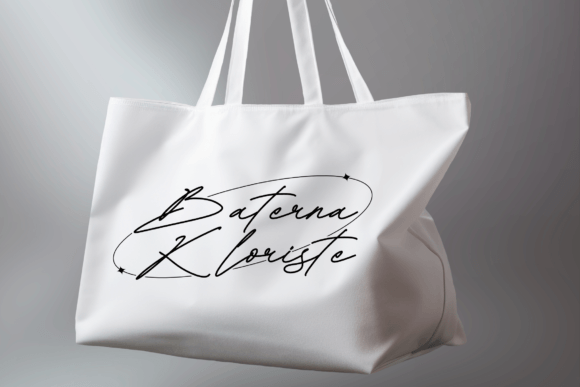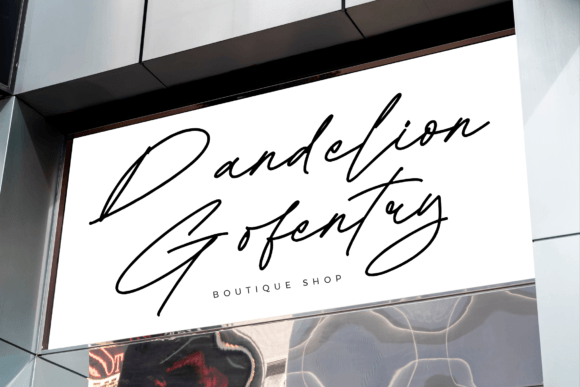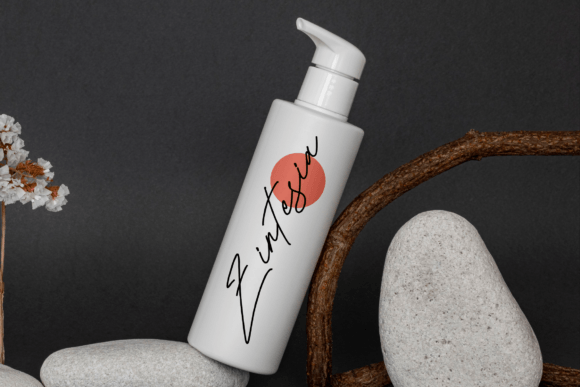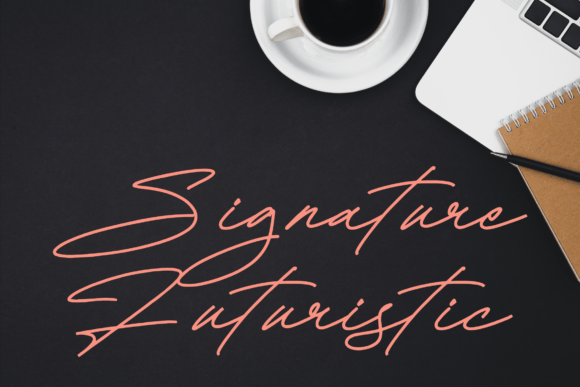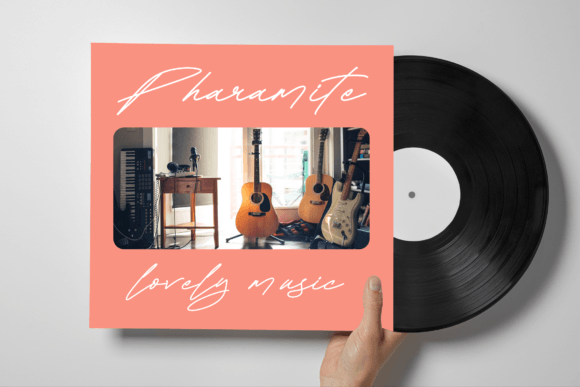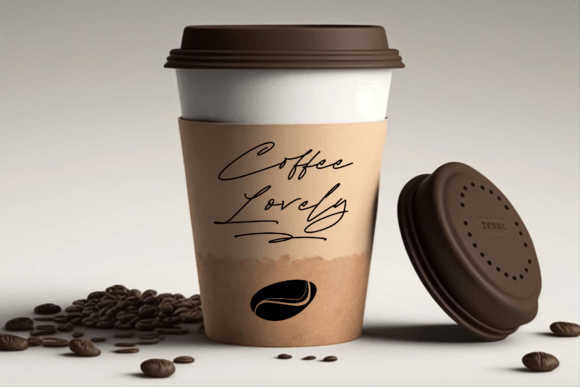
Introduction to Ratherlafia Forghive Font
Have you ever stared at a blank page, trying to bring a creative idea to life, only to feel stuck by the lack of the perfect font? We’ve all been there. But what if I told you that the perfect font is just a click away? Welcome to the world of Ratherlafia Forghive Font, a modern signature font that’s about to revolutionize your design projects.
Designed with versatility in mind, Ratherlafia Forghive Font is perfect for any creative project that needs a touch of elegance and sophistication. Whether you’re working on logos, branding projects, or even personal projects like quotes and posters, this font is sure to elevate your design to the next level. And the best part? It’s available for free download, making it an invaluable resource for designers of all levels.
With its high-quality design and transparent background, Ratherlafia Forghive Font is the perfect addition to any design resource library. Say goodbye to boring designs and hello to a world of creative possibilities with this beautiful script font.
Key Features of Ratherlafia Forghive Font
- High-quality, professional font suitable for creative projects, with a transparent background for seamless integration into designs.
- Unique, modern design that can add a touch of elegance to any project, making it perfect for designers looking for a distinctive font.
- Can be used in a variety of design contexts, from branding and marketing materials to digital products and websites.
- Designed to be highly legible, even at small font sizes, making it an excellent choice for body text and headings.
Honest Review: Ratherlafia Forghive Font
As a designer, I’ve had the chance to work with numerous design resources, but the Ratherlafia Forghive Font has definitely caught my attention. I downloaded it for free and was impressed by its high quality and versatility.
What works well with this font is its elegant and modern design. The transparent background makes it easy to overlay on any image or background, which is perfect for creative projects that require a lot of visual customization.
- ✨ High-quality design with a modern and elegant feel
- ✨ Transparent background for easy overlaying
- ✨ Suitable for a wide range of creative projects, from graphic design to web design
However, I do have a few limitations with this font. One of the main issues is that it can be a bit difficult to read at smaller font sizes, especially in situations where the text is not perfectly legible.
- ⚠️ Can be difficult to read at smaller font sizes
- ⚠️ May not be suitable for situations where text legibility is crucial
Overall, I’m impressed with the Ratherlafia Forghive Font, and I would definitely recommend it to designers looking for a high-quality, modern font for their creative projects.
The Ratherlafia Forghive Font is a high-quality design resource perfect for your next creative project. With its unique style and transparent background, it’s an ideal choice for designers looking to add a touch of elegance to their work.
Install the Ratherlafia Forghive Font in Adobe Photoshop/Illustrator and use it to create stunning graphics, logos, and typography.
Use the Ratherlafia Forghive Font in PowerPoint and Word to add a touch of sophistication to your presentations and documents.
To get the most out of the Ratherlafia Forghive Font, experiment with different font sizes, colors, and combinations. This font is versatile and can be used in a variety of creative ways.
The Ratherlafia Forghive Font is perfect for:
Corporate branding and marketing materials
Social media graphics and posts
Presentations and reports
Can I modify the Ratherlafia Forghive Font to suit my design needs?
Yes, the Ratherlafia Forghive Font is fully editable, allowing you to customize it to fit your specific design requirements. Whether you’re looking to create a custom logo or branding material, the font’s high-quality design ensures that it will remain legible and visually appealing even after modification.